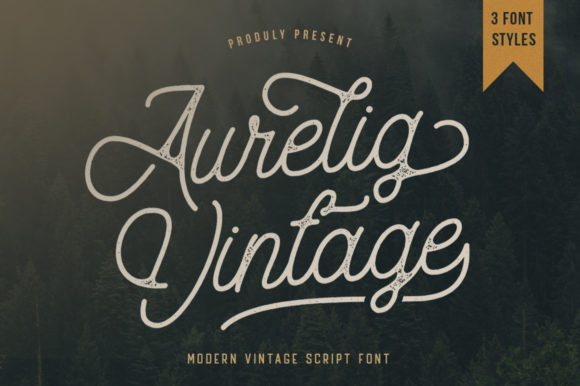
Embark on a Typographic Odyssey with Aurelig Vintage Font!
Step into the realm of Aurelig Vintage Font, a script typeface that intertwines the allure of the modern, vintage, and retro aesthetics. Its monoline style evokes a sense of authenticity and nostalgia, inviting you to create captivating designs that resonate with your audience.
Aurelig Vintage Font: A Stroke of Artistic Genius
With Aurelig Vintage Font, your creative potential knows no bounds. Its meticulously crafted curves and delicate strokes lend an air of timeless elegance to your projects. Whether you're designing wedding invitations, branding materials, or social media graphics, this font adds a touch of sophistication and charm.
Fall in Love with the Vintage Charm
Aurelig Vintage Font is a love letter to the past, capturing the essence of bygone eras and infusing it into your designs. Its vintage-inspired characters evoke a sense of nostalgia, transporting you back to a time of simpler pleasures and timeless beauty.
Make a Statement with Every Design
Aurelig Vintage Font's captivating style commands attention, making it the perfect choice for creating impactful designs. Its unique monoline style adds a touch of intrigue and personality to your projects, ensuring they stand out from the crowd.
Versatility at Your Fingertips
Aurelig Vintage Font's versatility is undeniable. Its ability to seamlessly adapt to a wide range of design styles makes it an indispensable tool for any creative professional. From elegant wedding invitations to playful social media posts, this font effortlessly elevates your designs.
Experience the Art of Typography
With Aurelig Vintage Font, you're not just downloading a font; you're embarking on an artistic journey. Its carefully crafted characters are a testament to the power of typography, transforming ordinary words into captivating works of art.